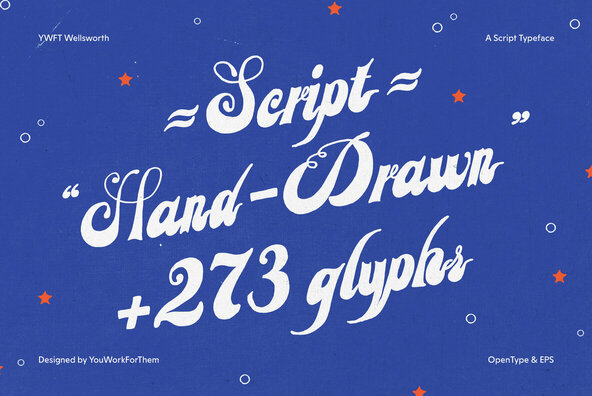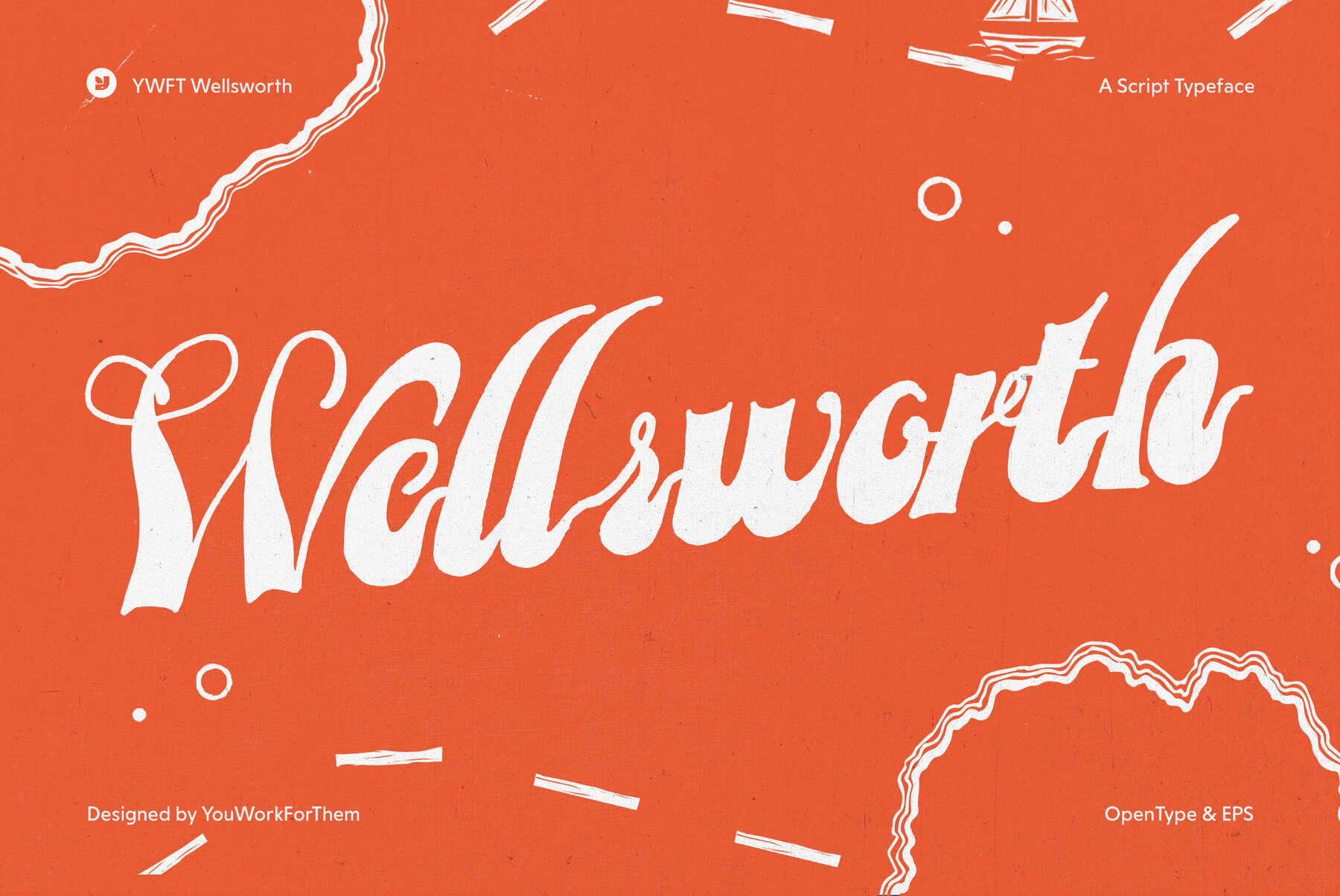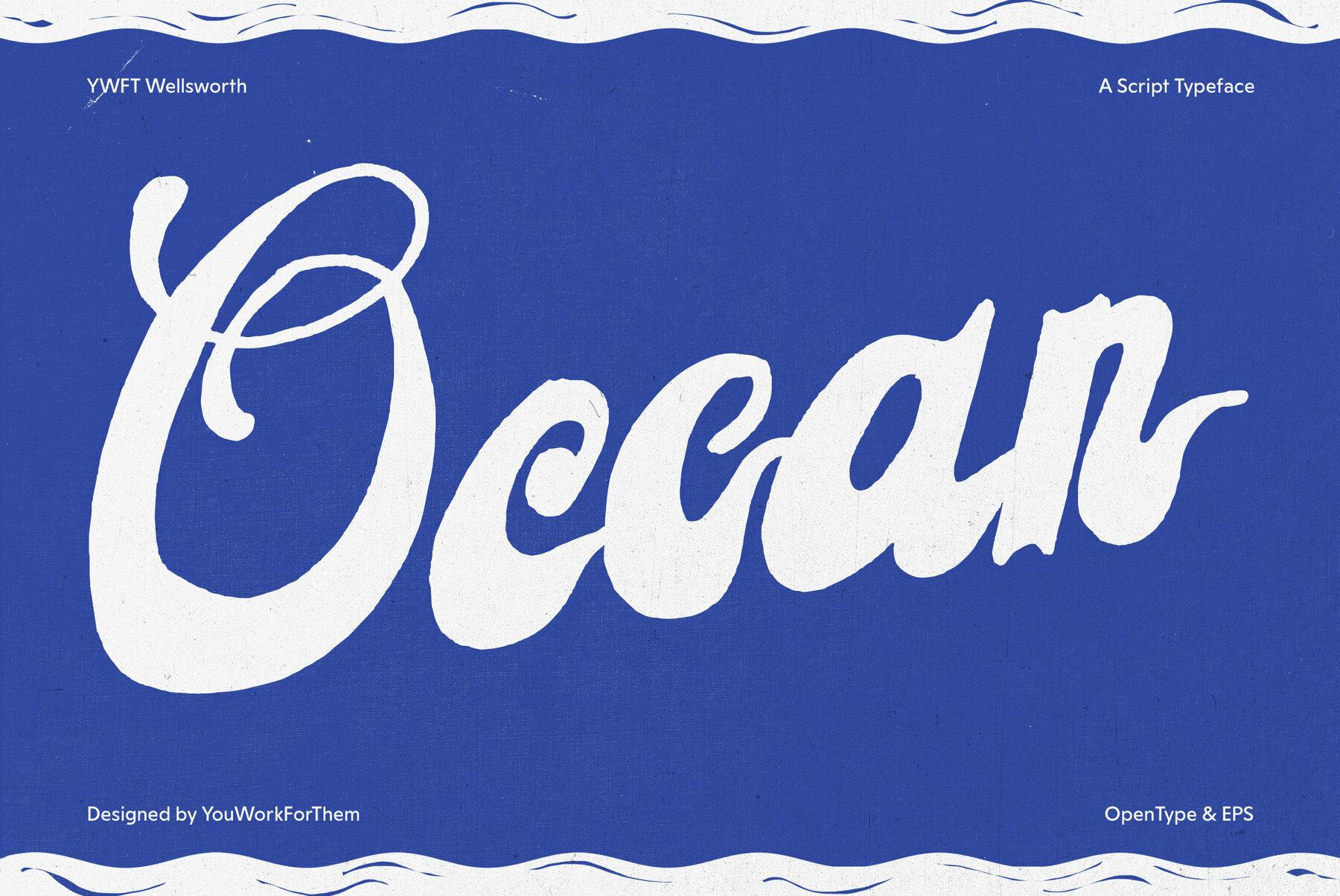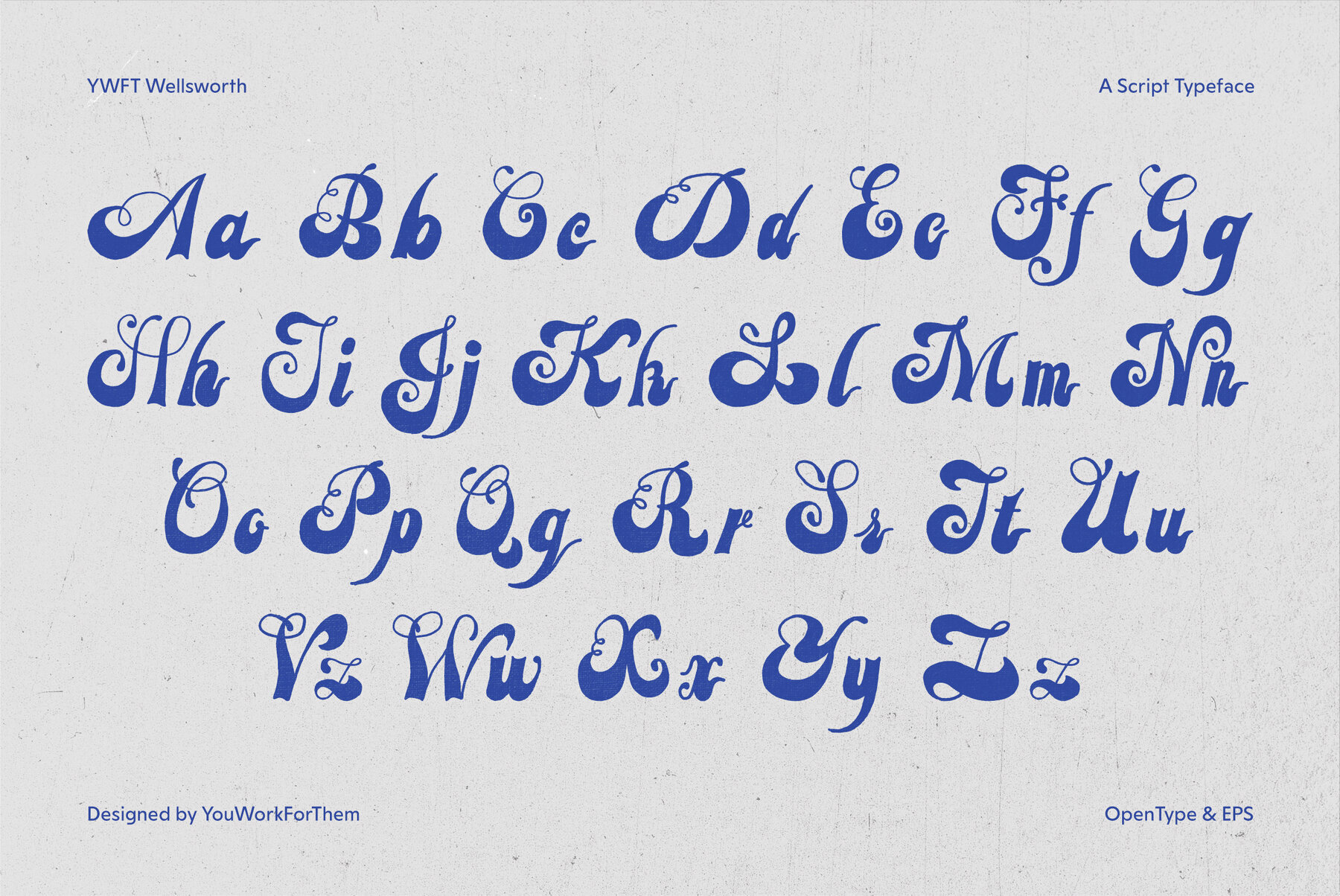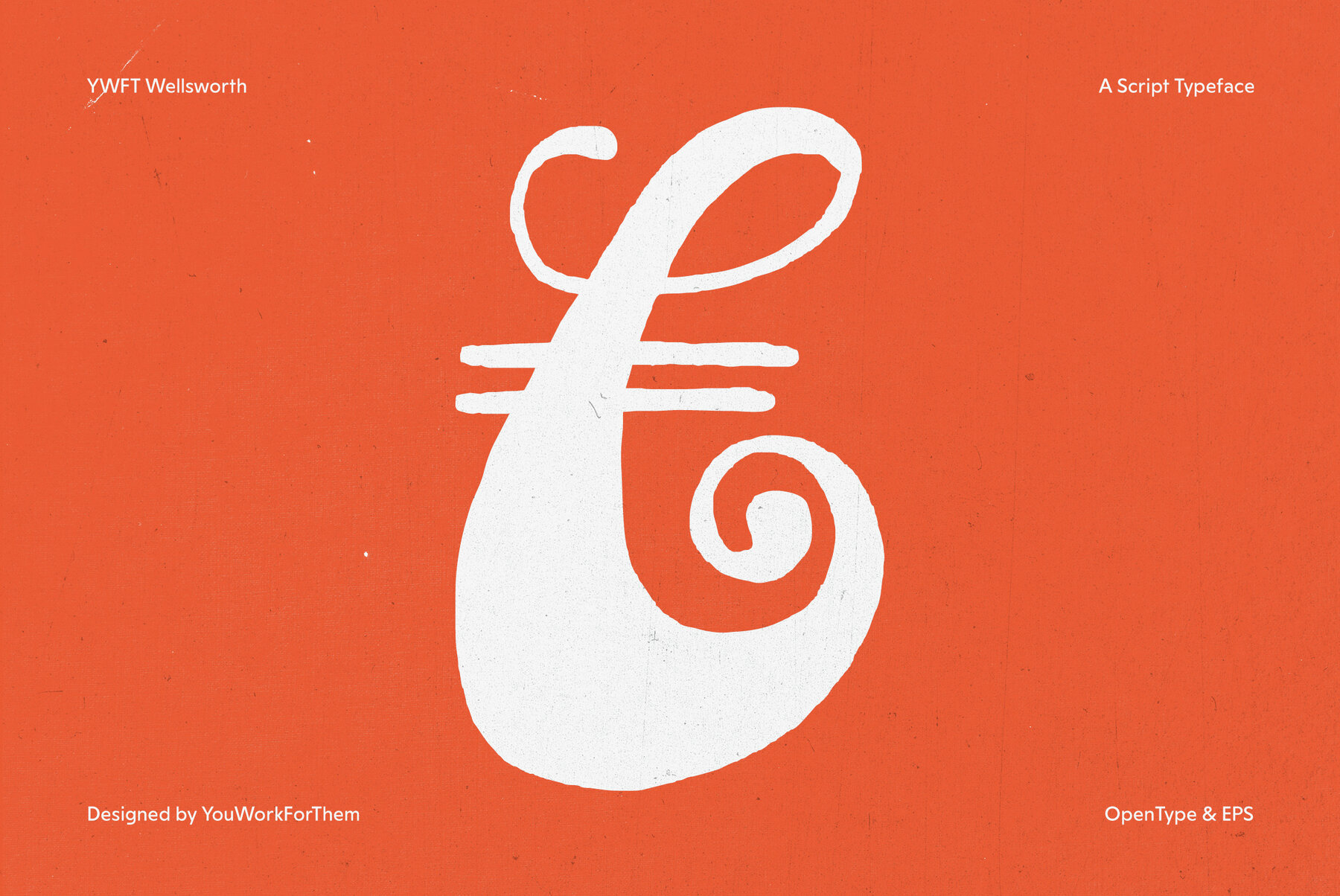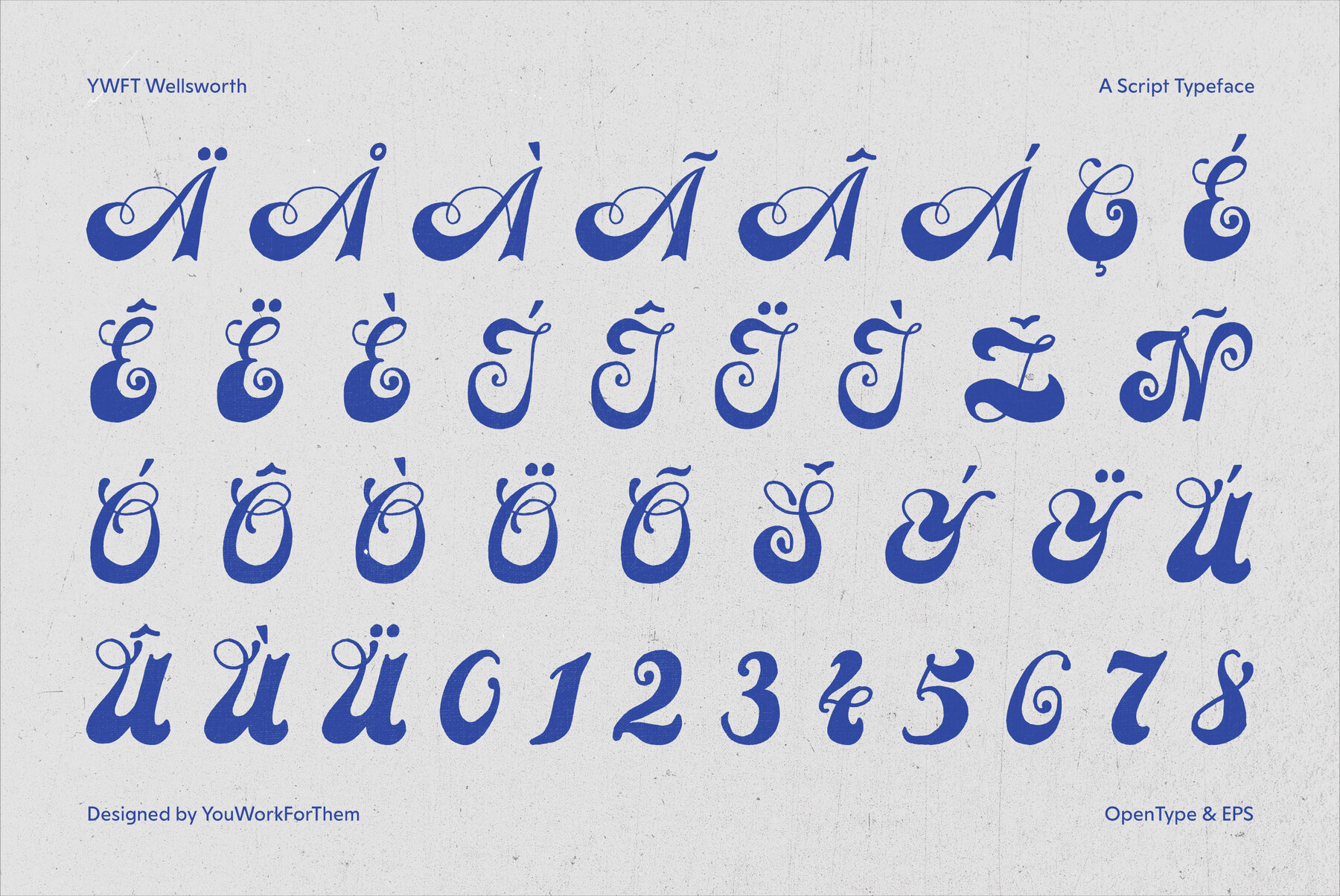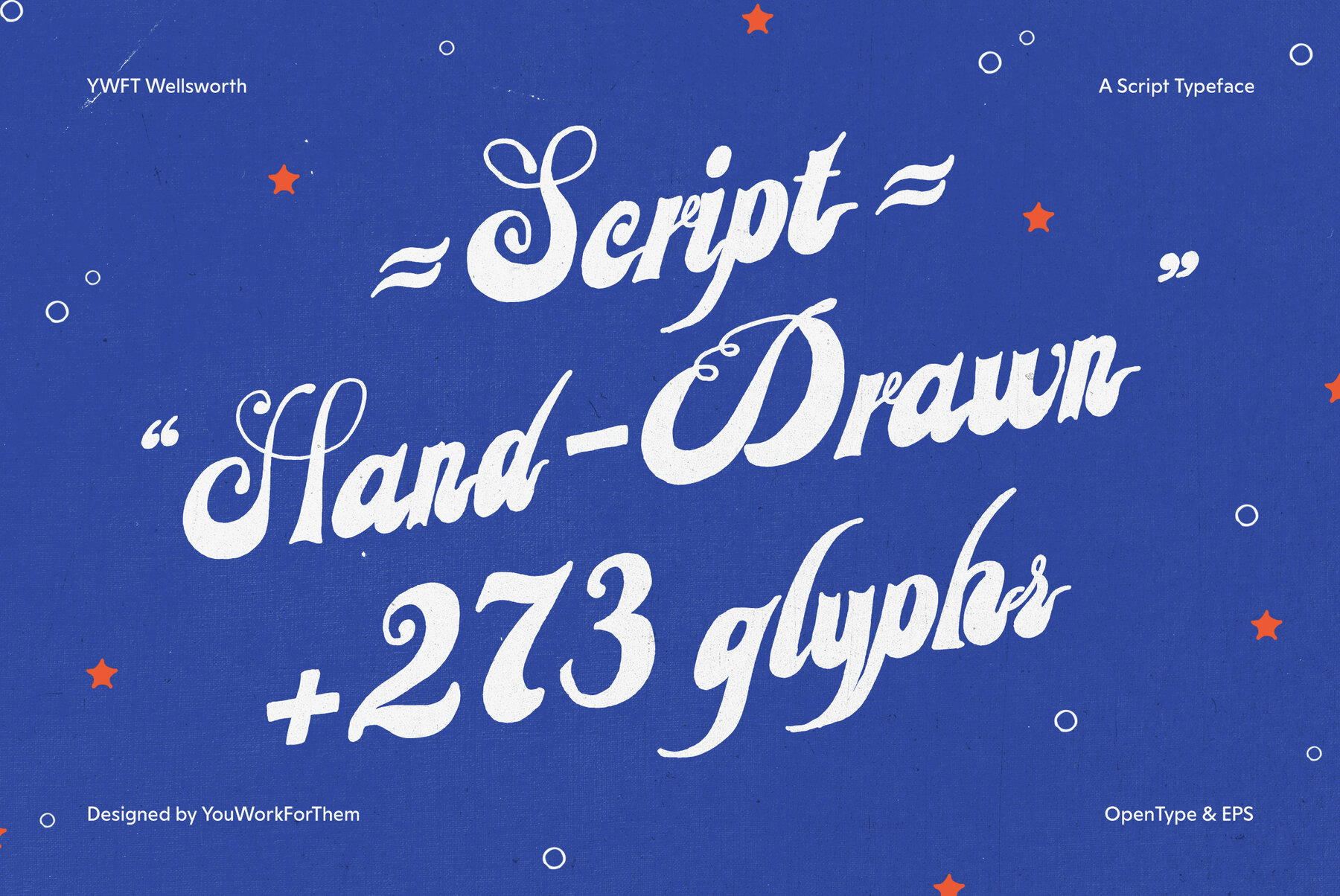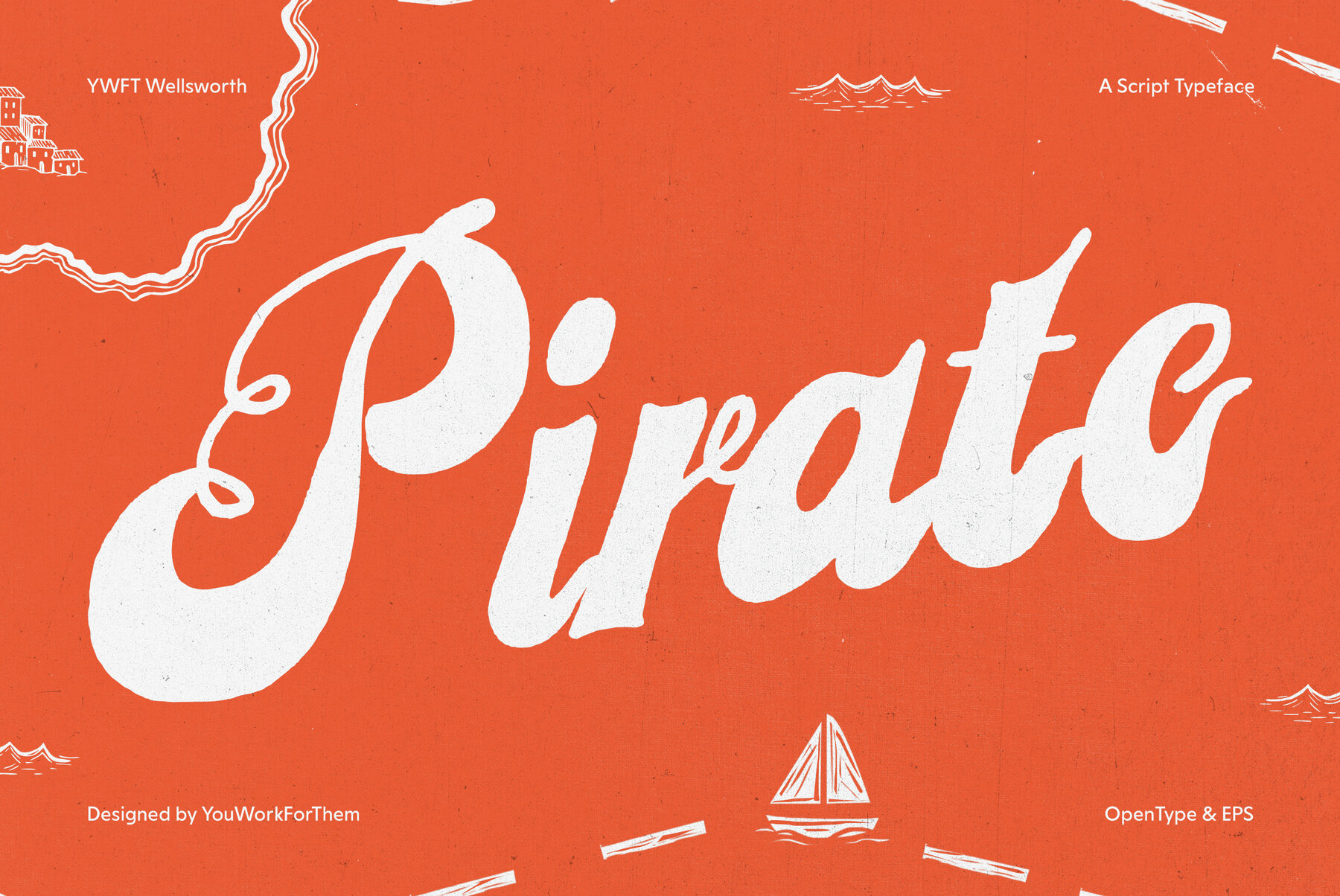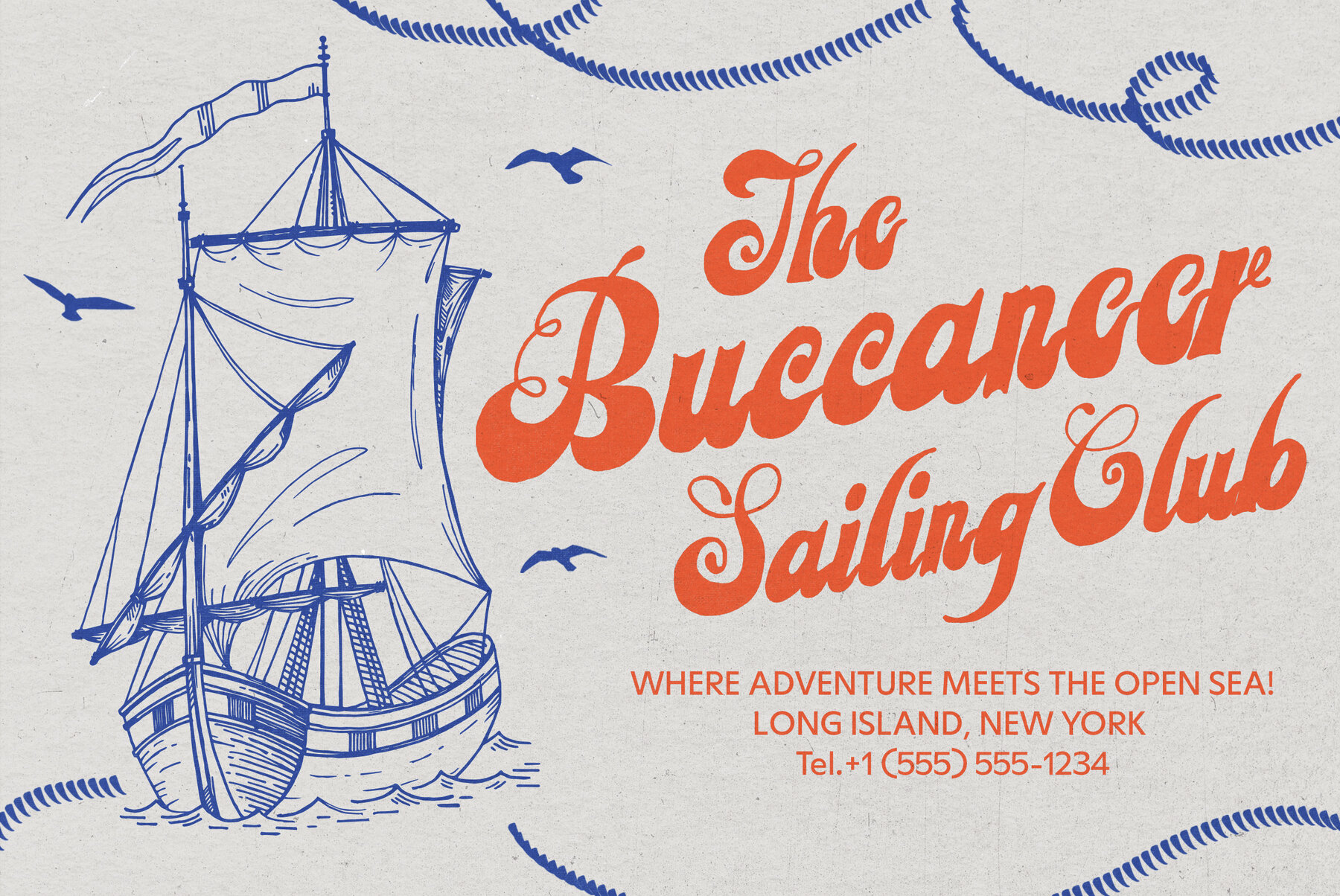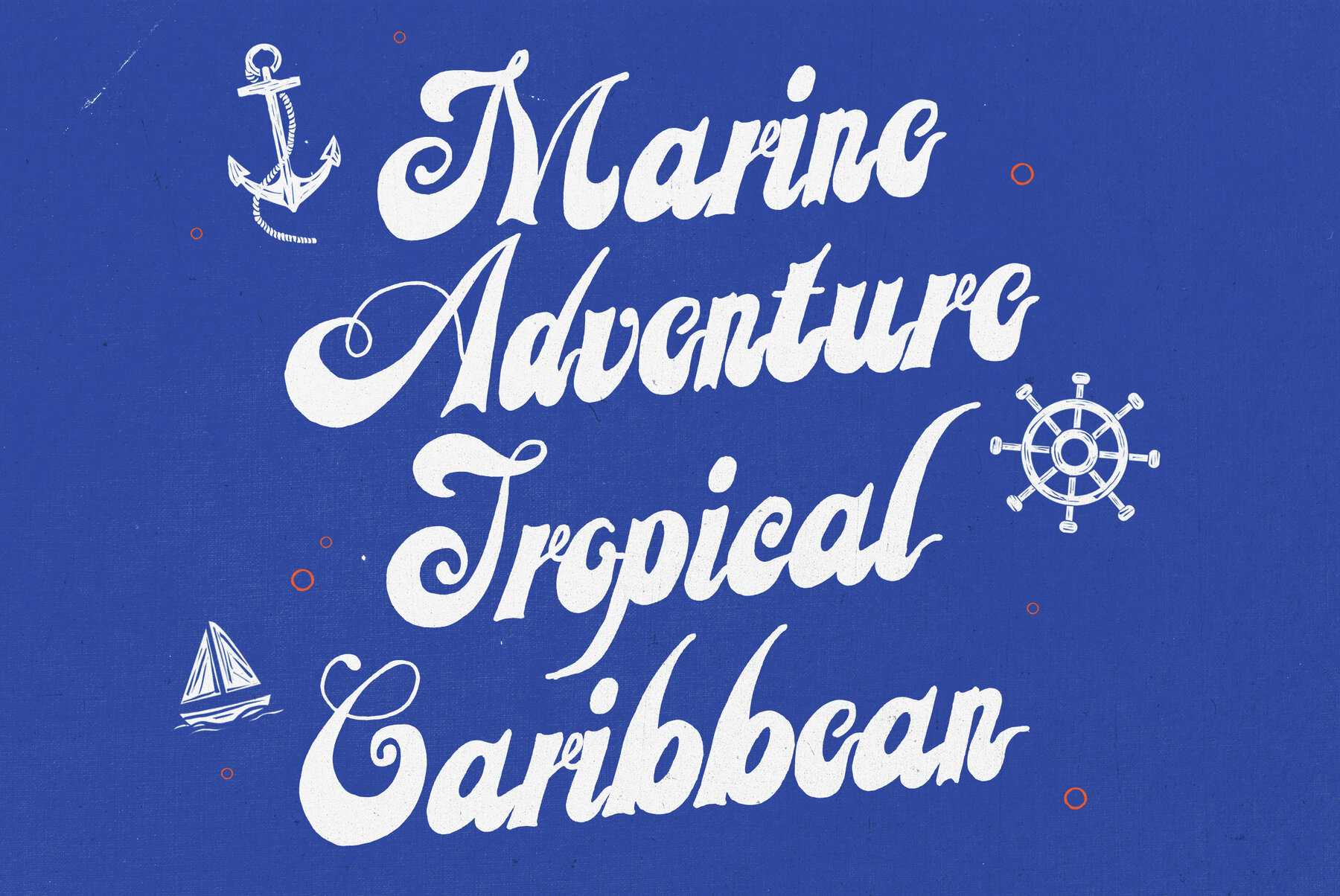
YWFT Wellsworth
YWFT Wellsworth is the lovechild of that wayward 70s Julia Script and a massive-shouldered fellow with a big black beard and a laugh that rolls like thunder. Formerly known as a handset only design, YWFT Wellsworth is now a powerful, swashbuckling OpenType monster with the power to quash the Kraken and stand steadfastly against the Great Old Ones.
It contains 273 glyphs, with a batch of stylistic alternates, done in a hand-drawn style. YWFT Wellsworth feels vintage with a revolutionary flair, certainly up to the task of a mutiny poster or rum barrel brand, or any other roughed-up, late-night call to action. Avast!